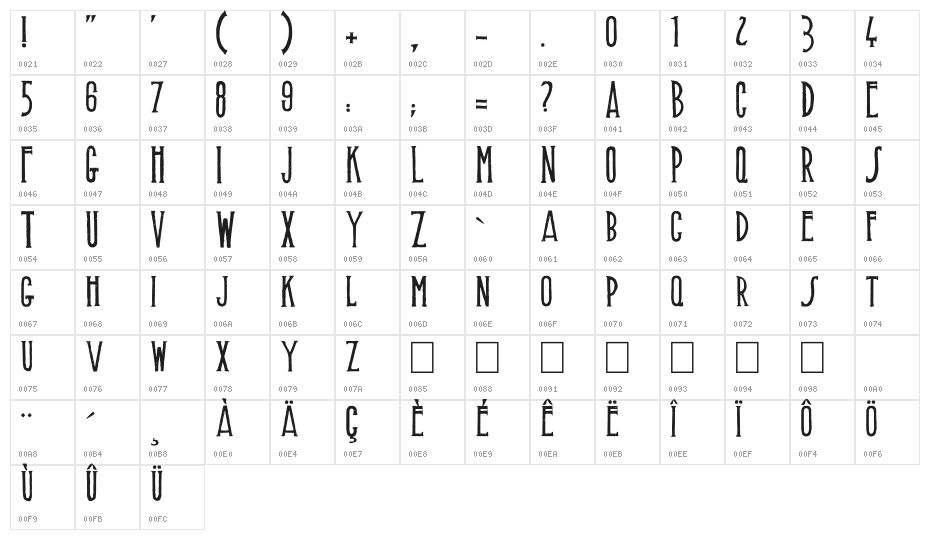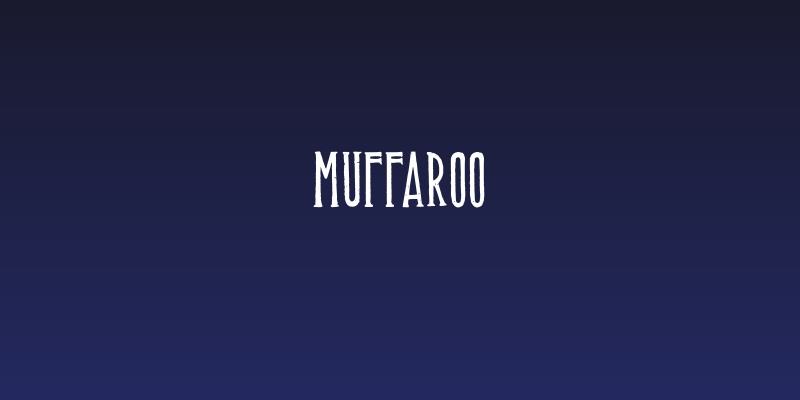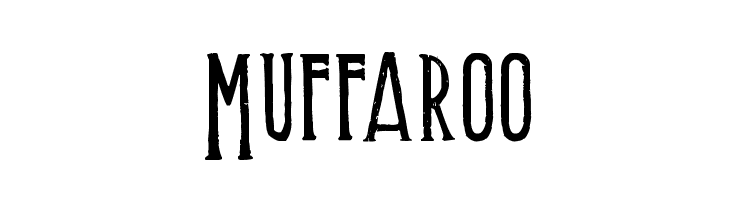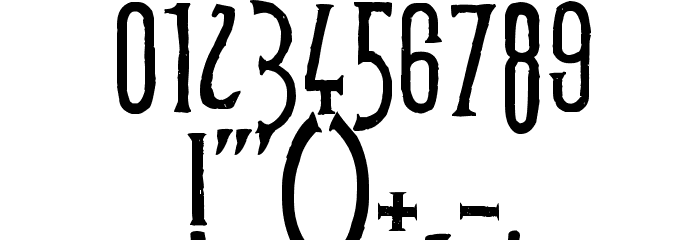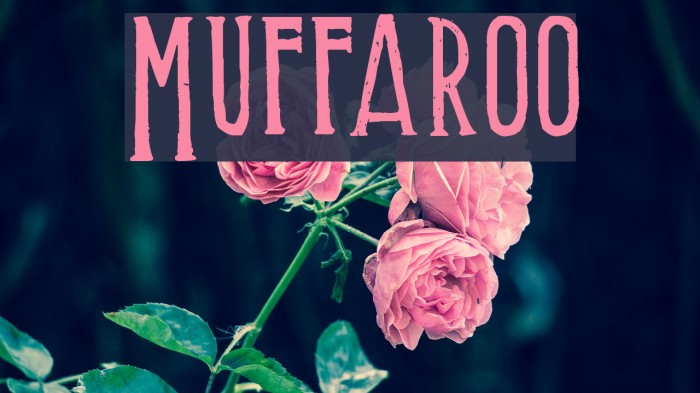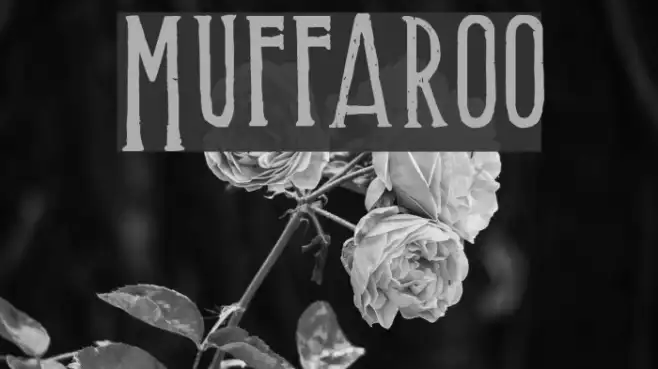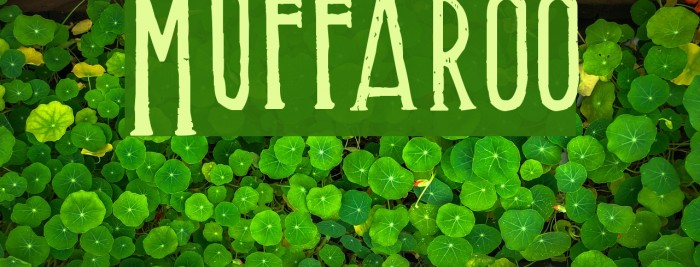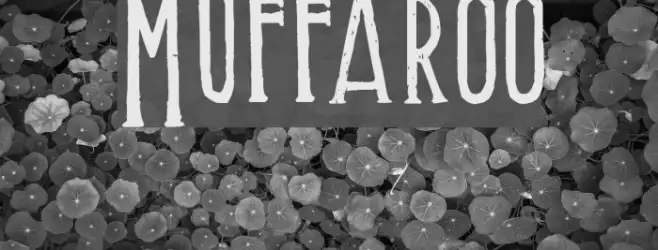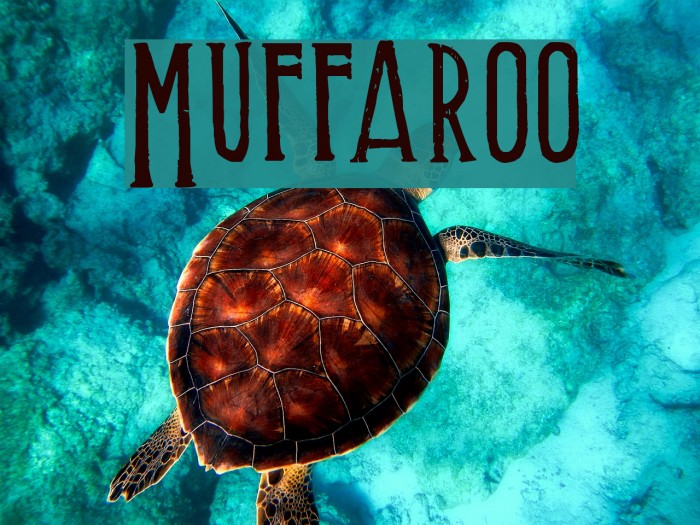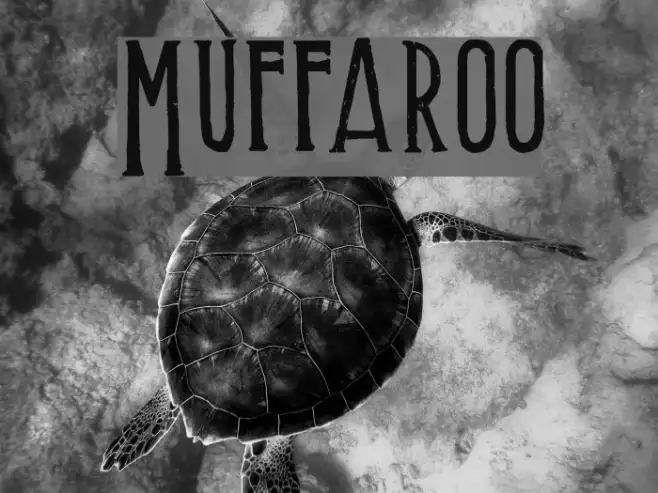
Muffaroo Font
Muffaroo Description
This font features a distressed, vintage look with uneven edges and a hand-crafted feel. The uppercase letters are tall and narrow, giving a sense of height and elegance, while the lowercase letters maintain a consistent style with slightly more rounded edges. The numbers are bold and match the overall aesthetic, providing a cohesive look. Special characters are included, maintaining the same distressed style, adding versatility to the font. The texture suggests a worn, rustic appearance, reminiscent of old signage or printmaking techniques, making it ideal for projects that require a touch of nostalgia or a handcrafted vibe.
| Proposed Projects | Ideal for vintage posters, rustic branding, handmade product packaging, or any project needing a nostalgic touch. |